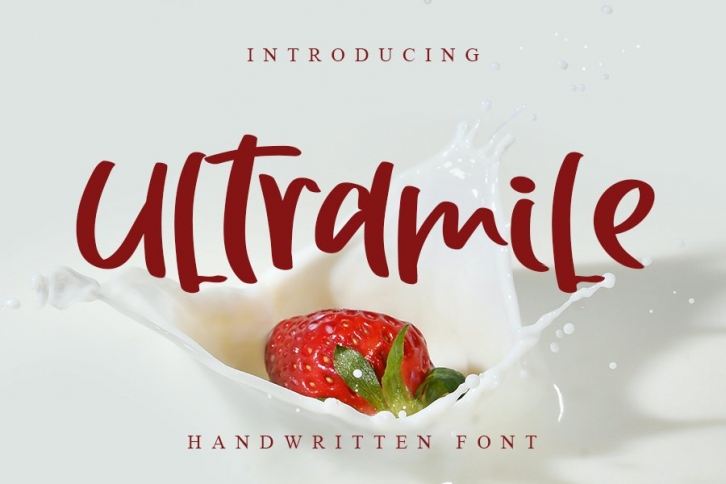
Ultramile is a beautiful font that was designed by InermediaSTUDIO. It's a great choice for designers and creatives who need such a font. It was released on October 20, 2020 and the file size is 8.95 MB. Ultramile may give a more youthful, expressive and casual look to your project. It is a very beautiful, refined, elegant, and high-quality font.